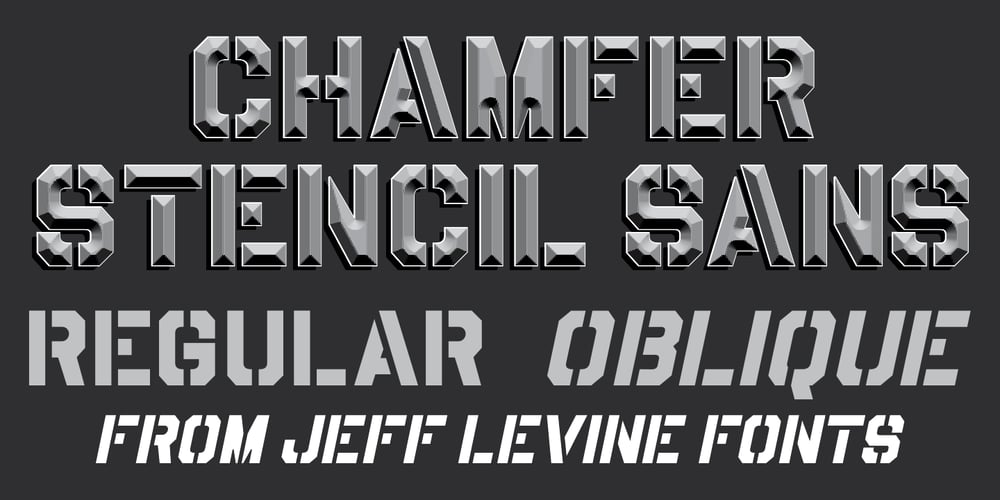
Chamfer Stencil Sans JNL Font Family was designed by Jeff Levine and published by Jeff Levine. Chamfer Stencil Sans JNL contains 2 styles and family package options. Based on some 1930s-era ‘block chamfer’ gummed paper lettering, Chamfer Stencil Sans JNL is a stenciled treatment of the original design; available in both regular and oblique versions.